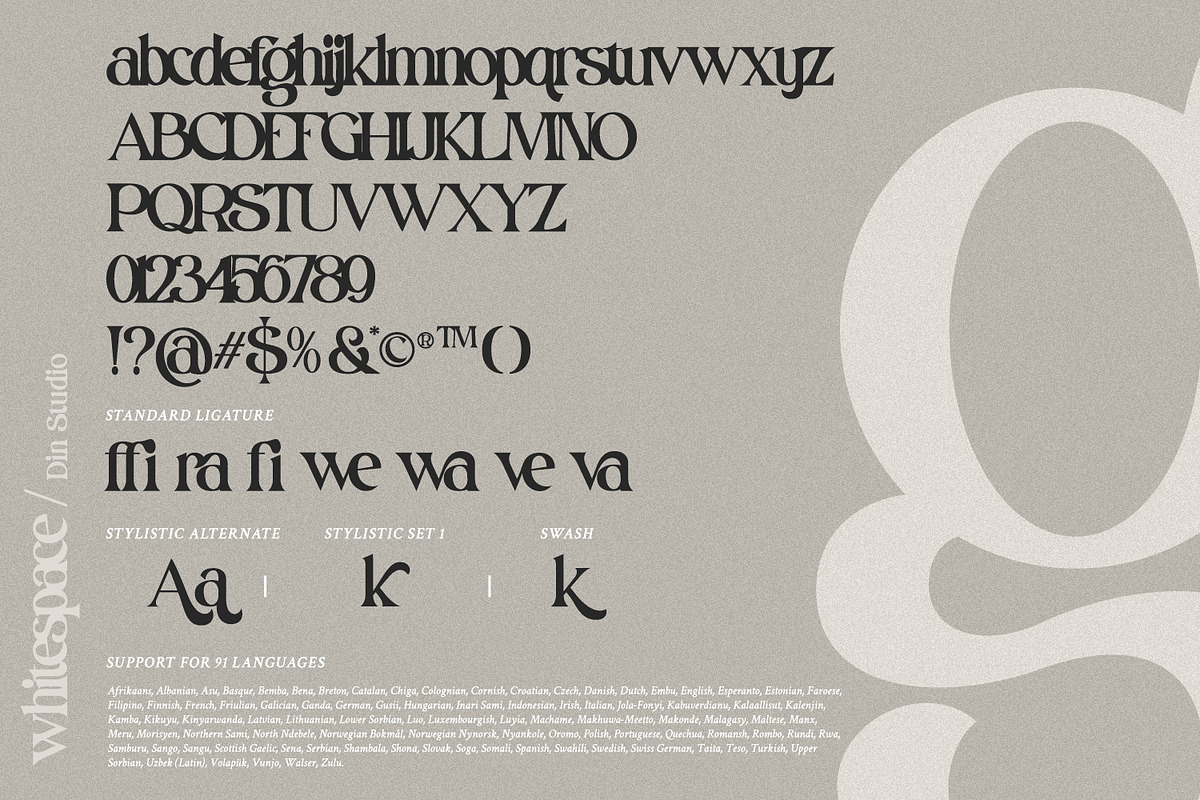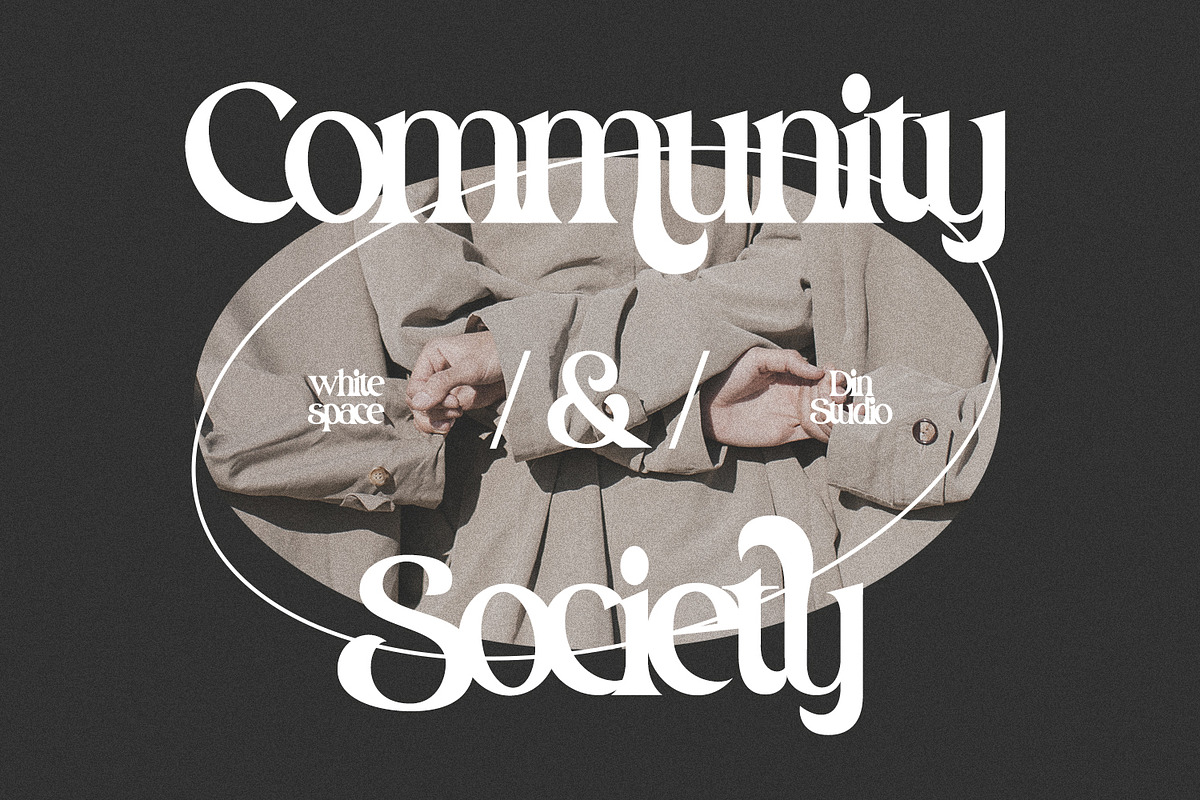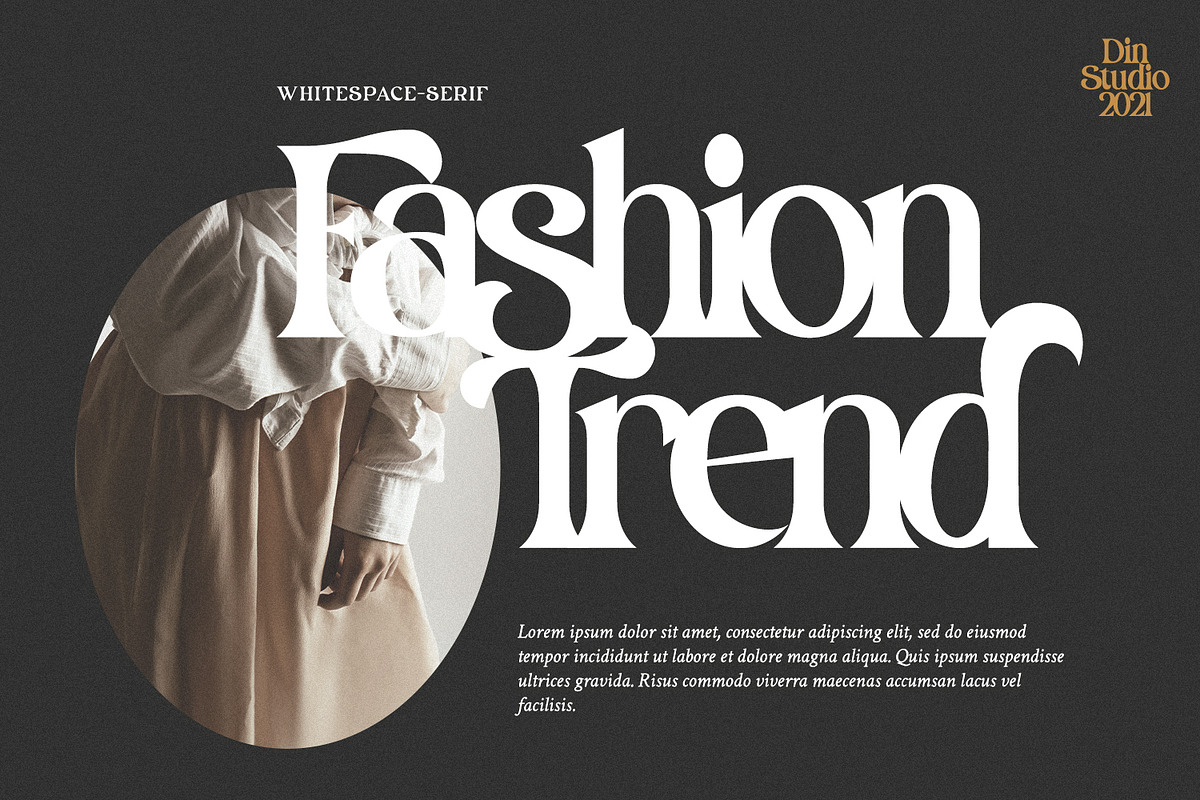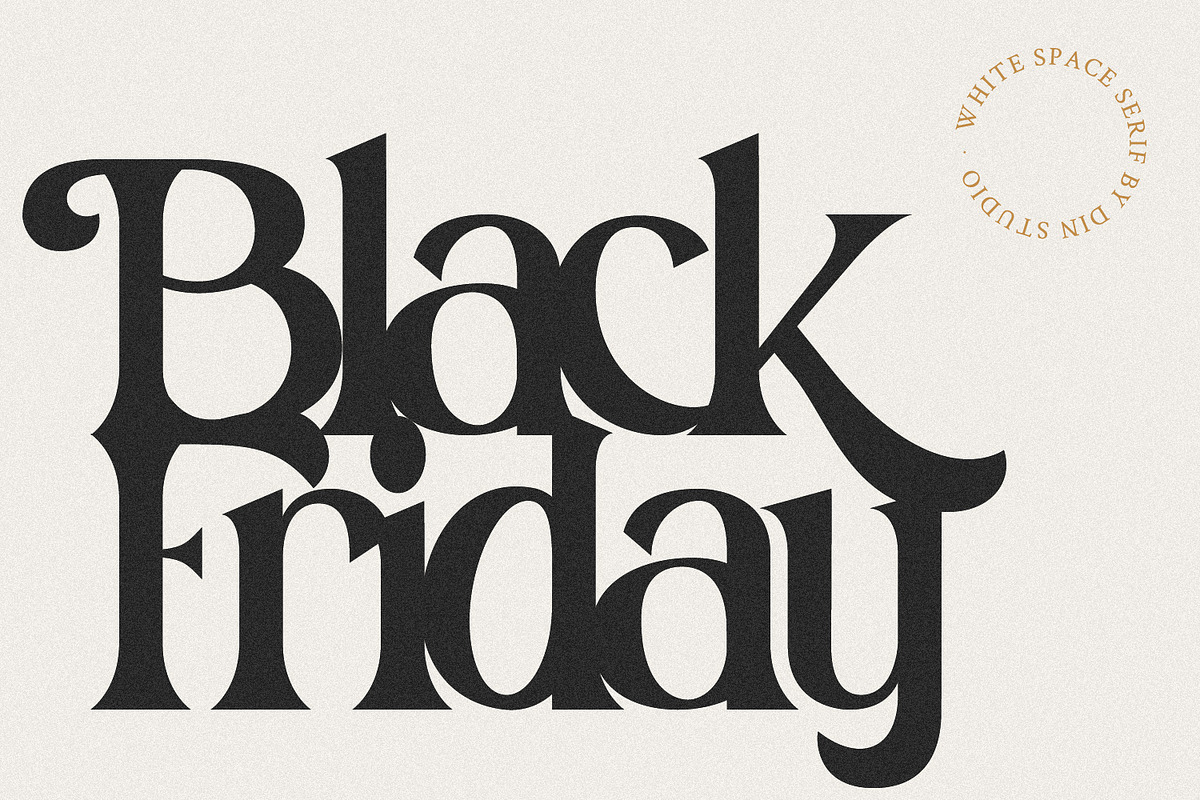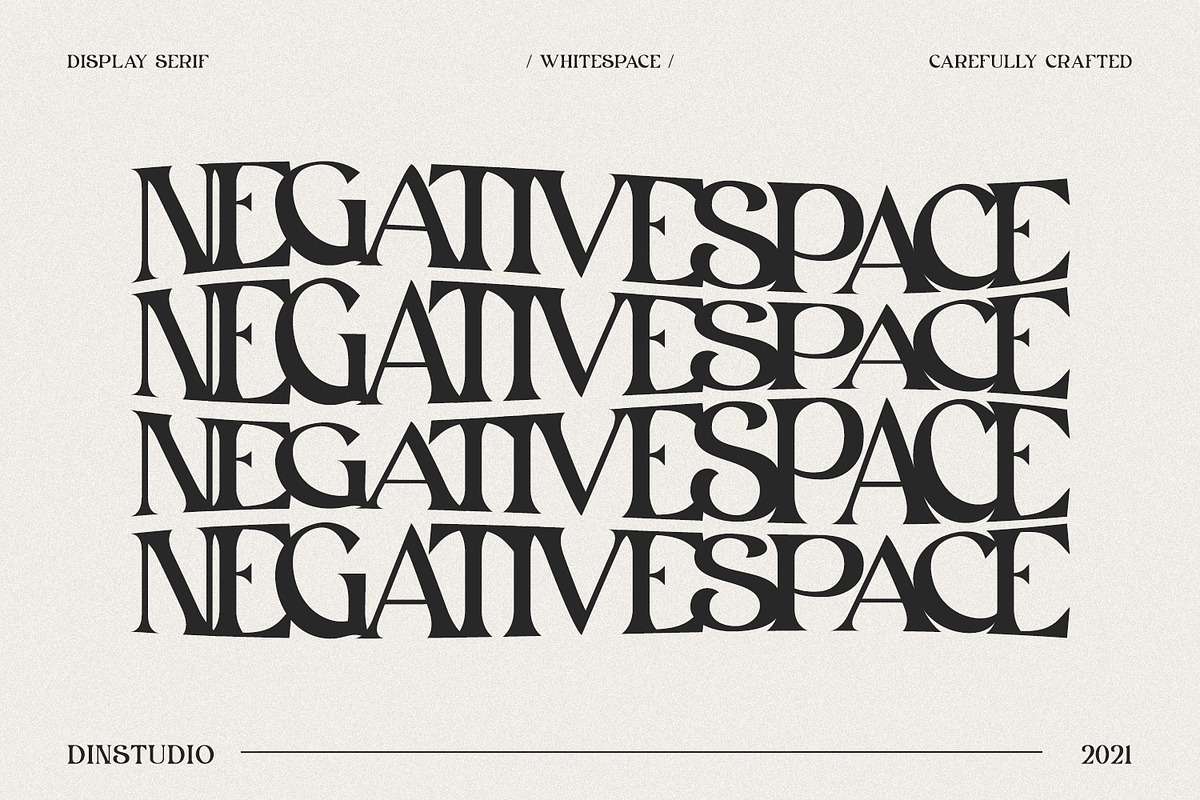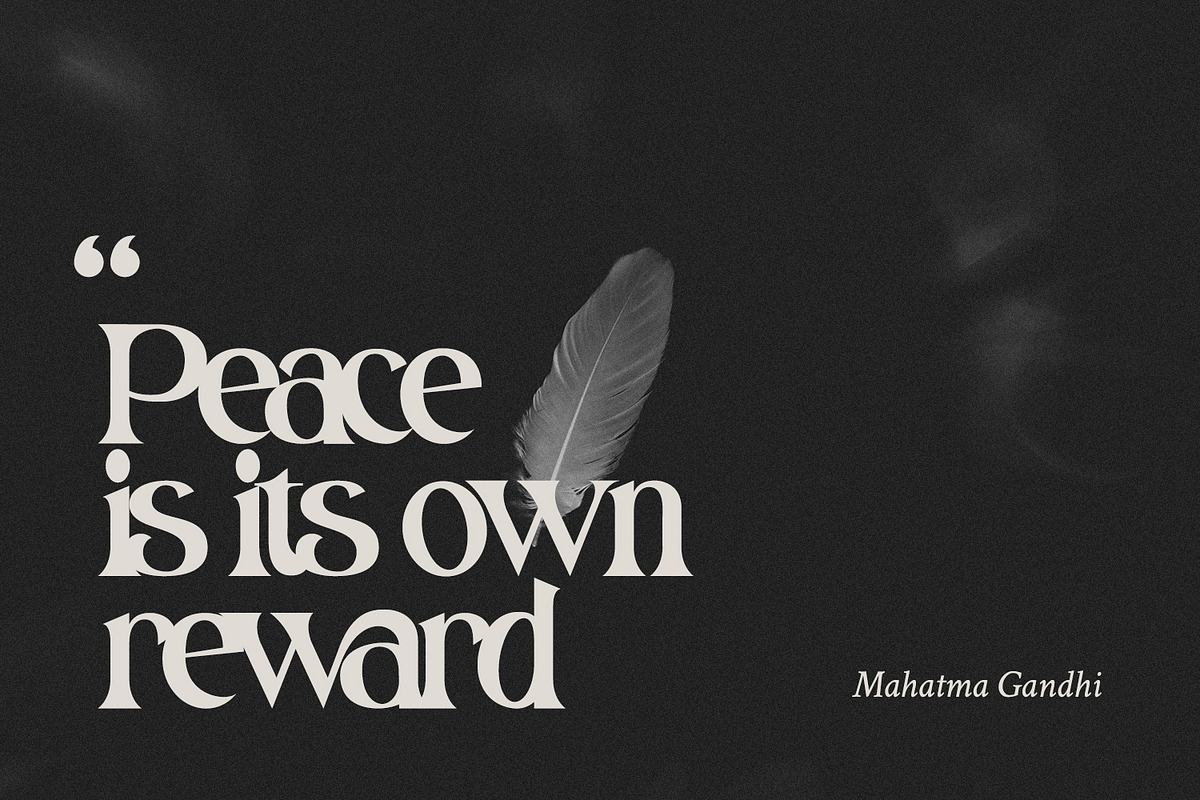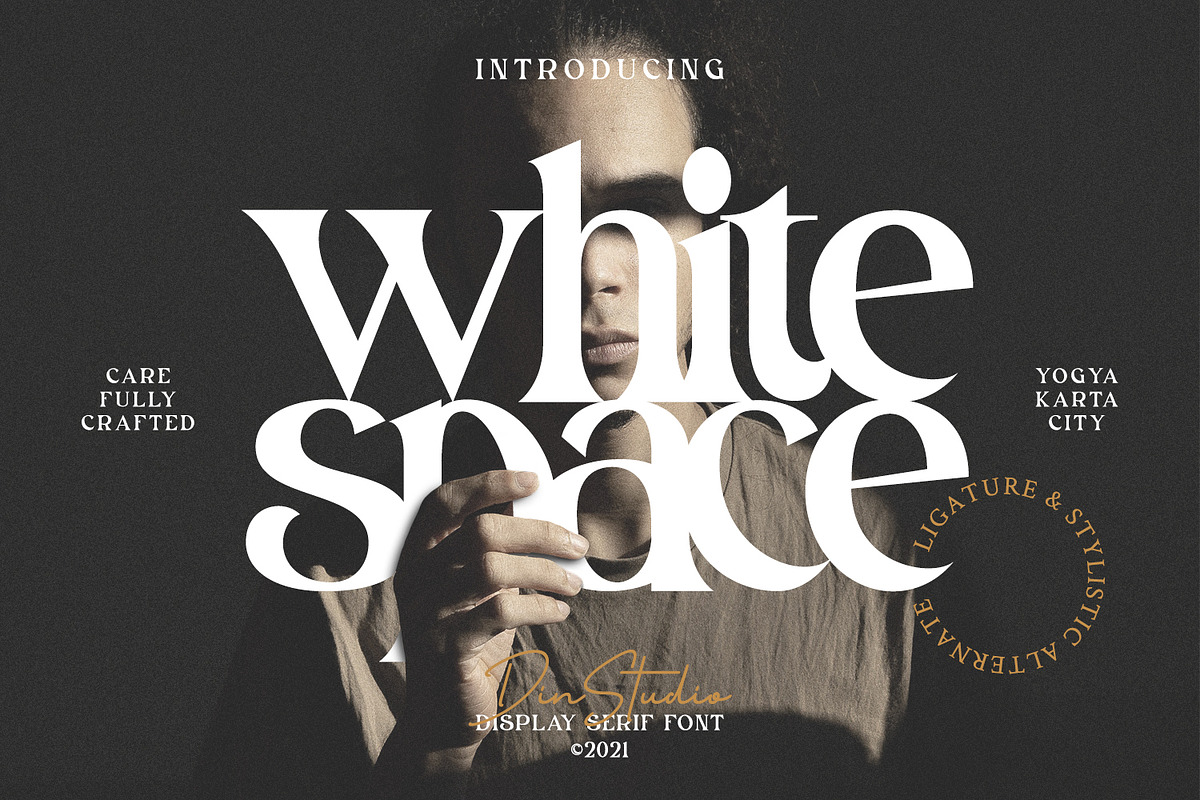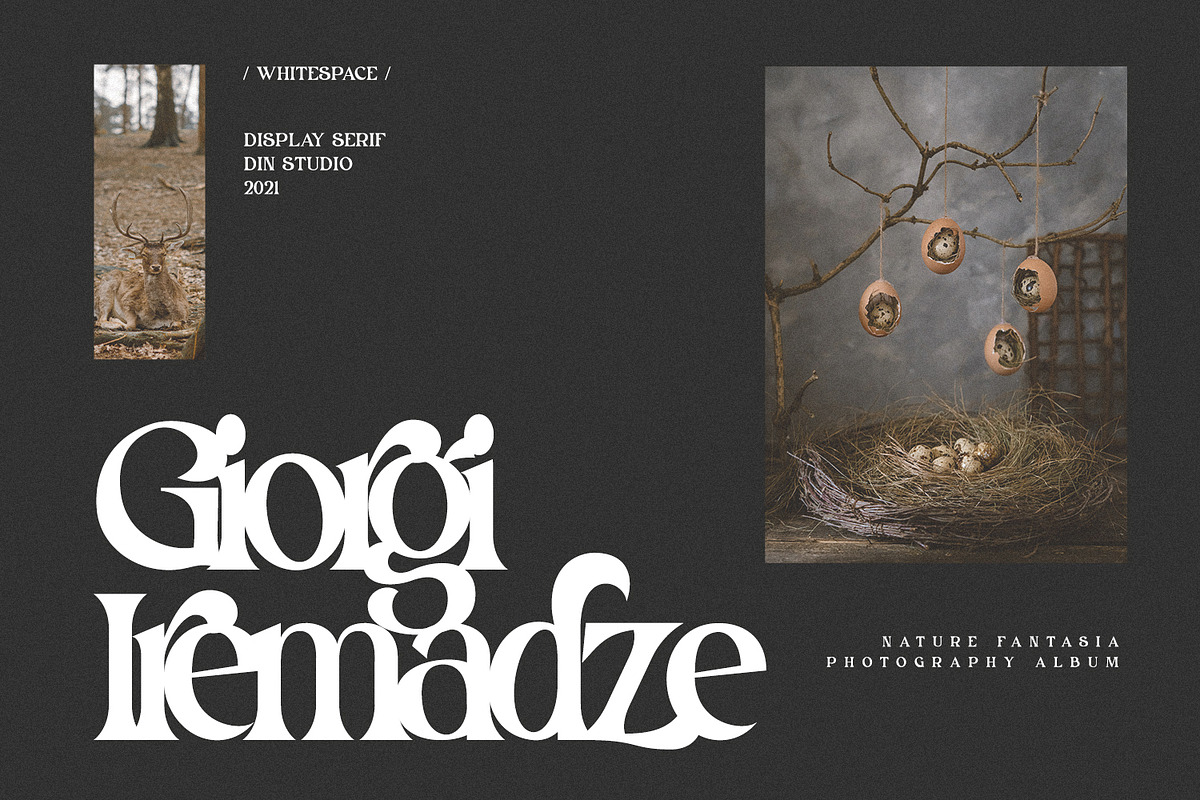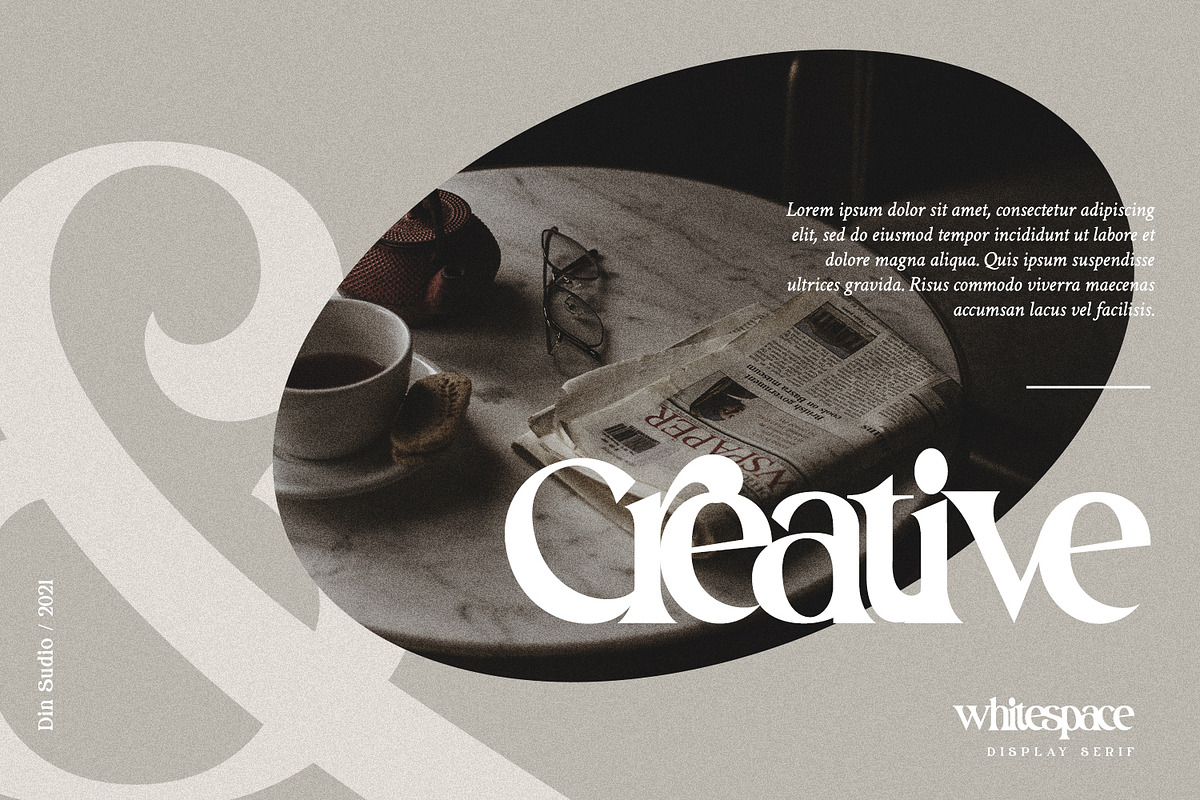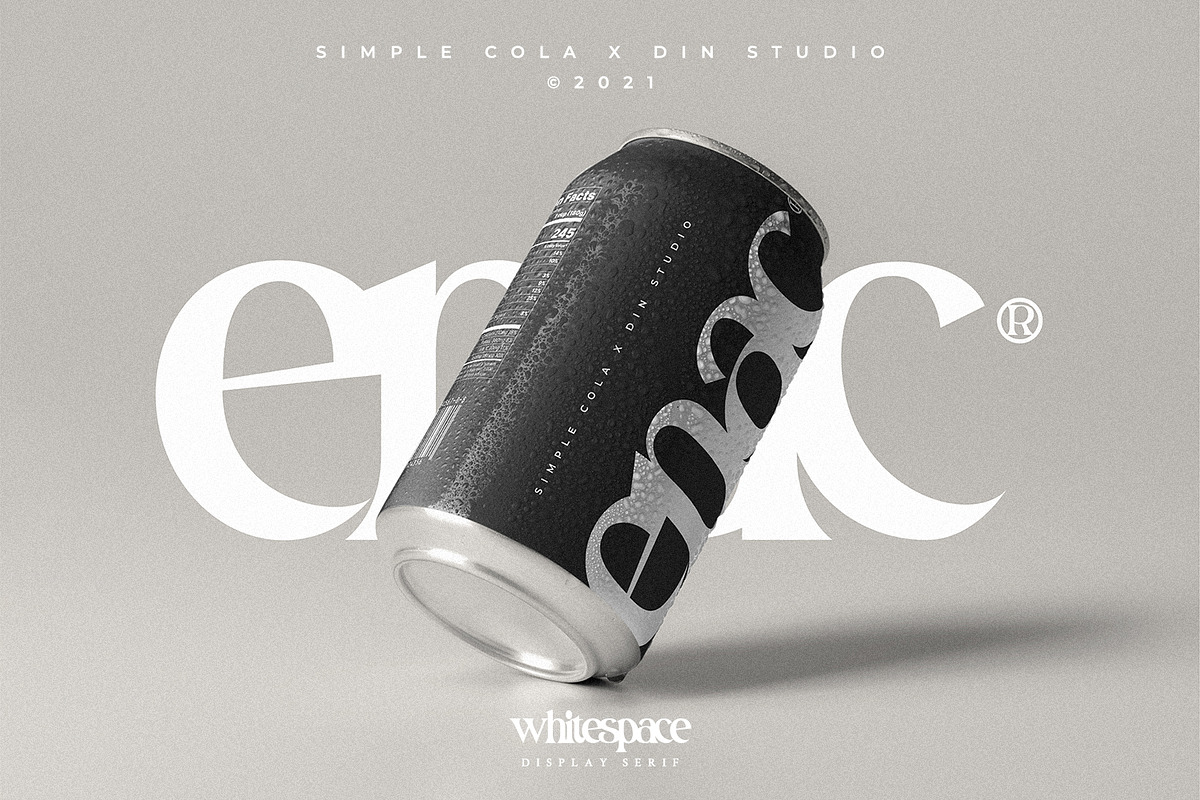
White Space
Hello, Everybody! Are you trying to make elegant, calm, stylish projects? If yes, grab this font immediately. Introducing White Space – A Serif Font.
This gorgeous, stylish and modern font can be used for a host of different content needs and projects. White Space is ideal for social media banners; posts, ads, printed quotes, t-shirt designs, packaging, and even a modern text overlaying any background images.
- Stylistic Set